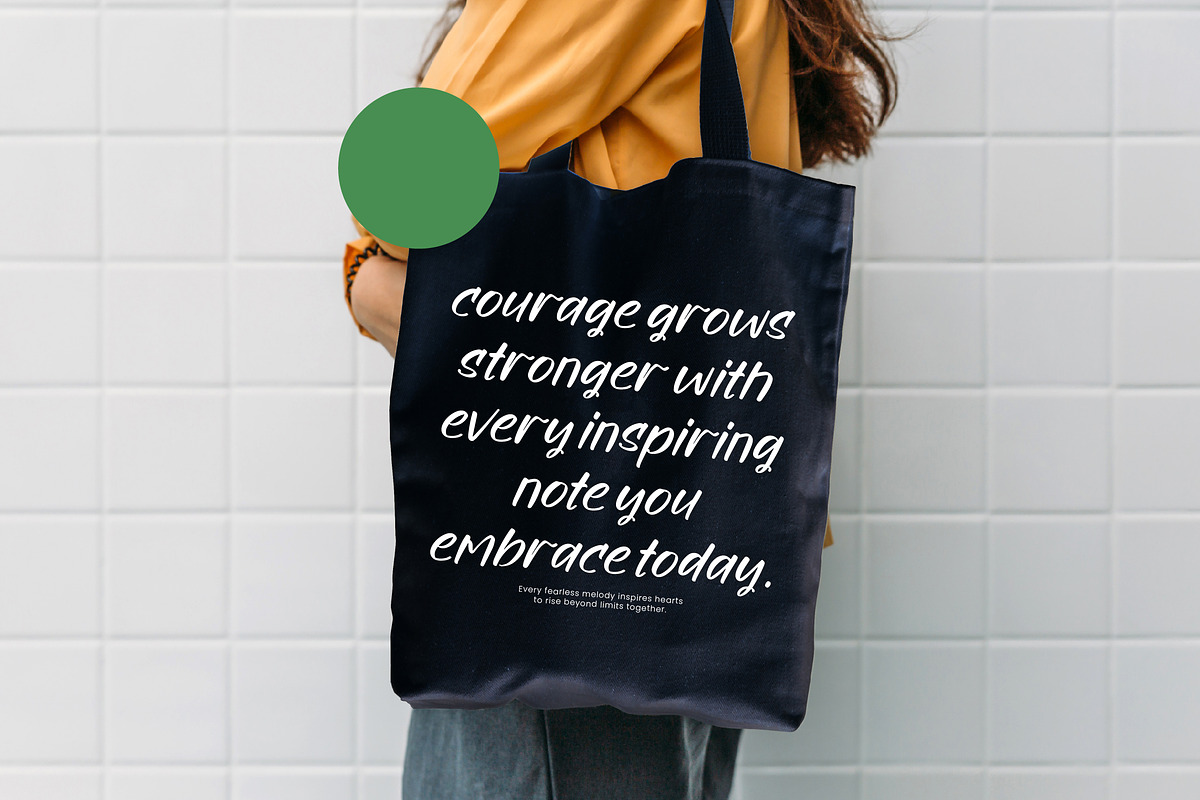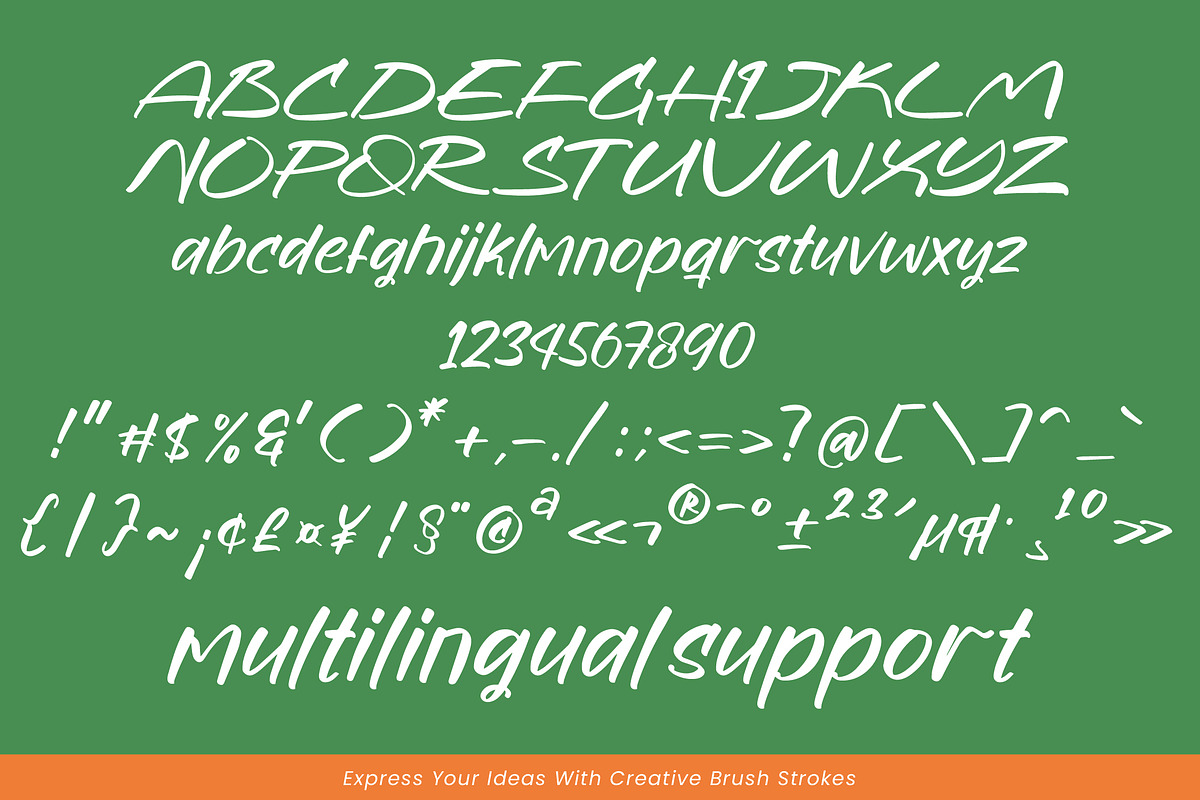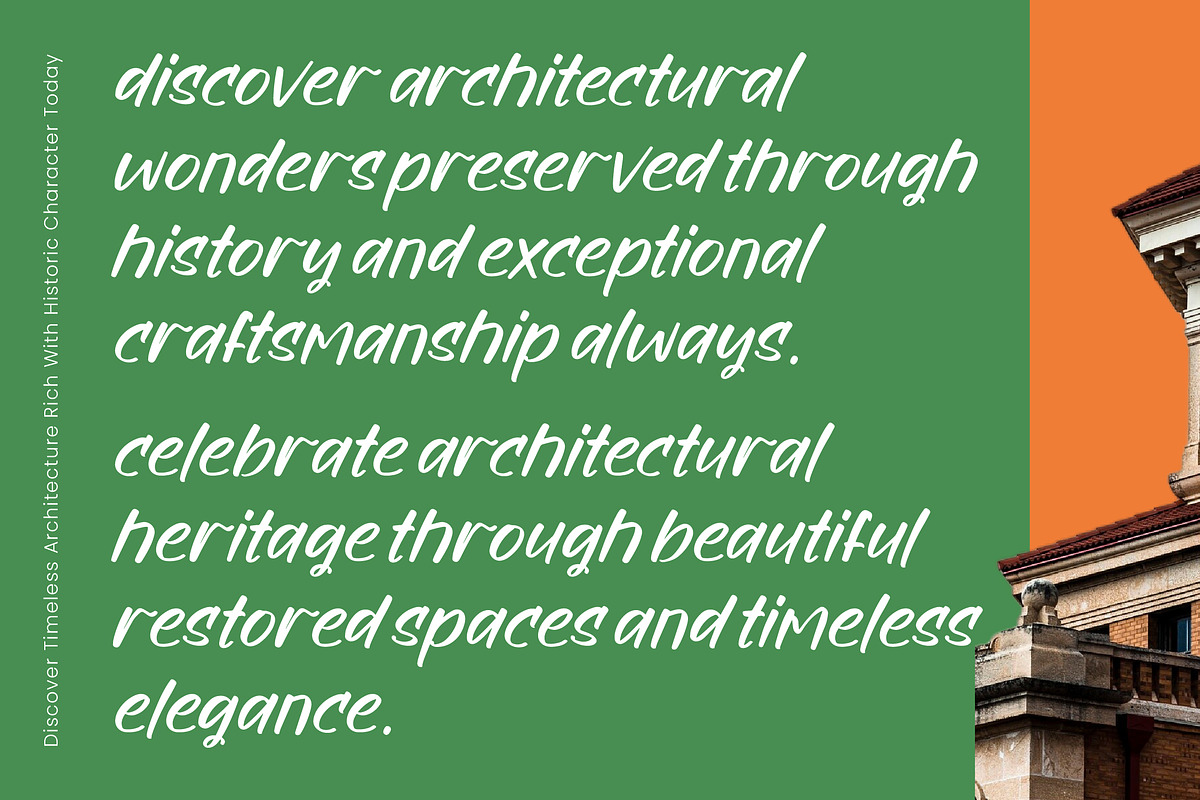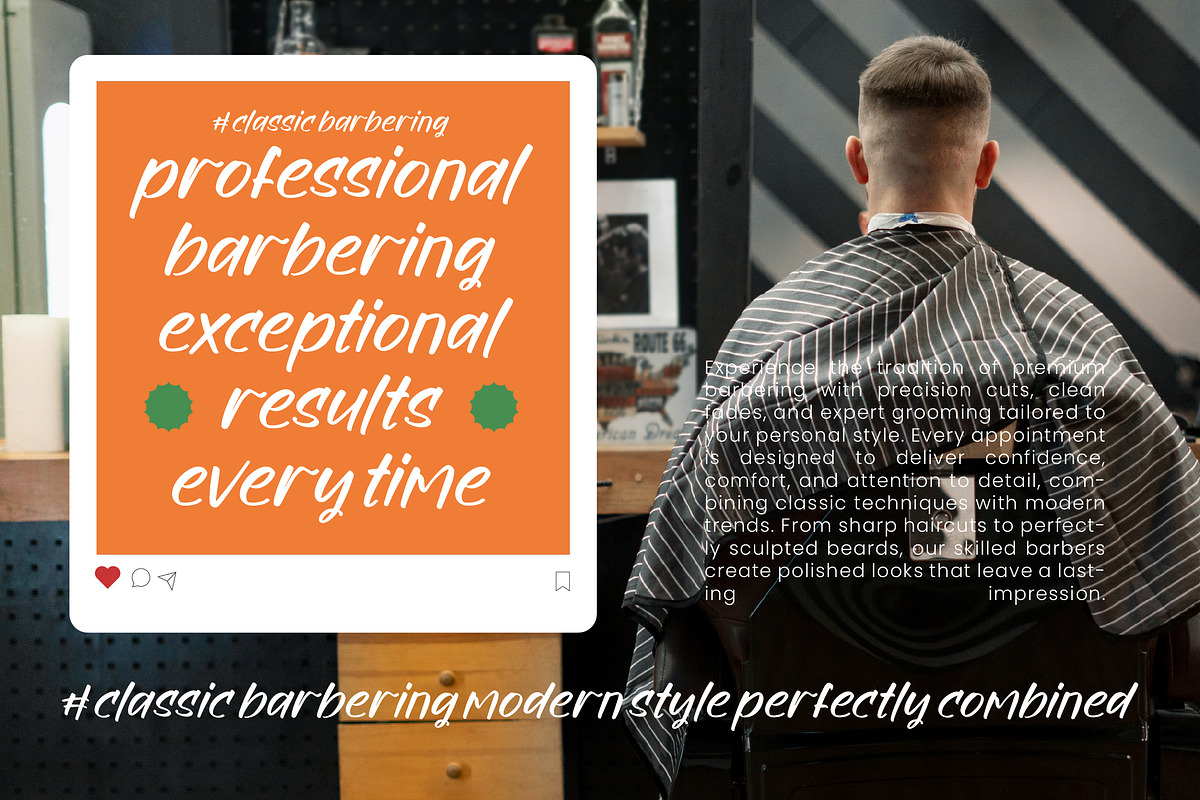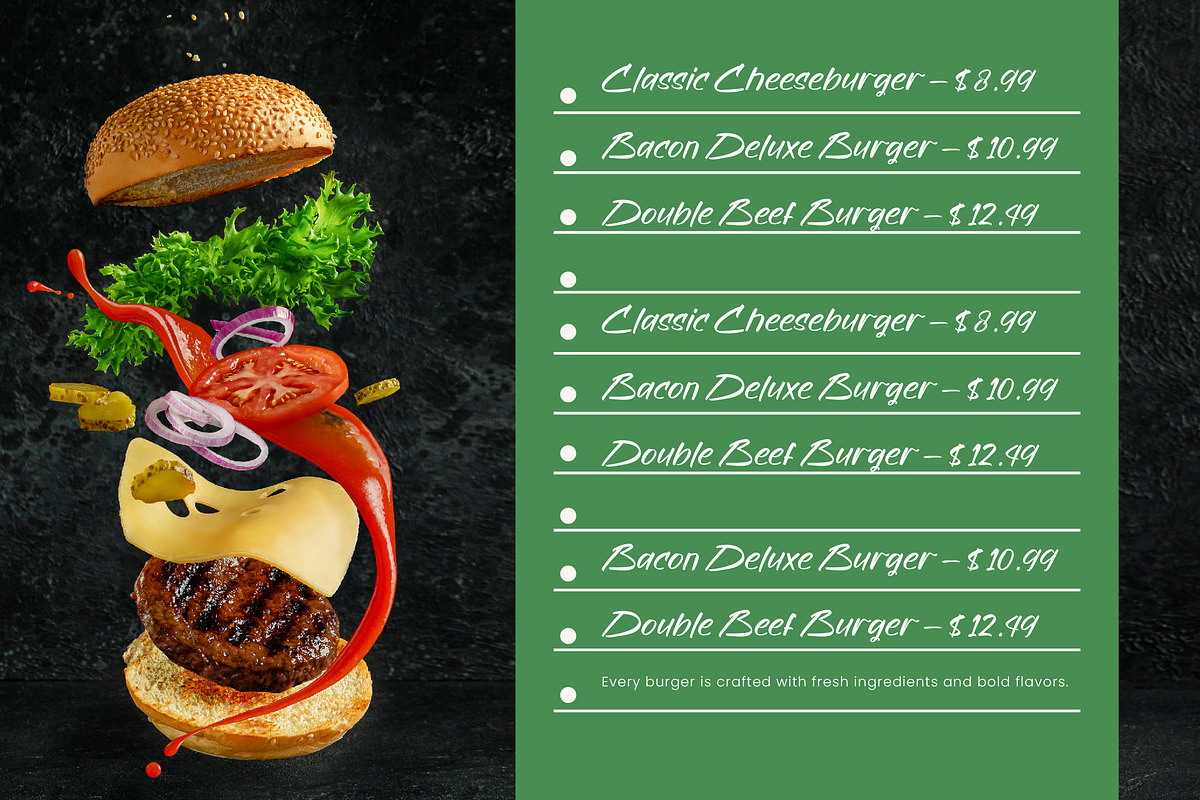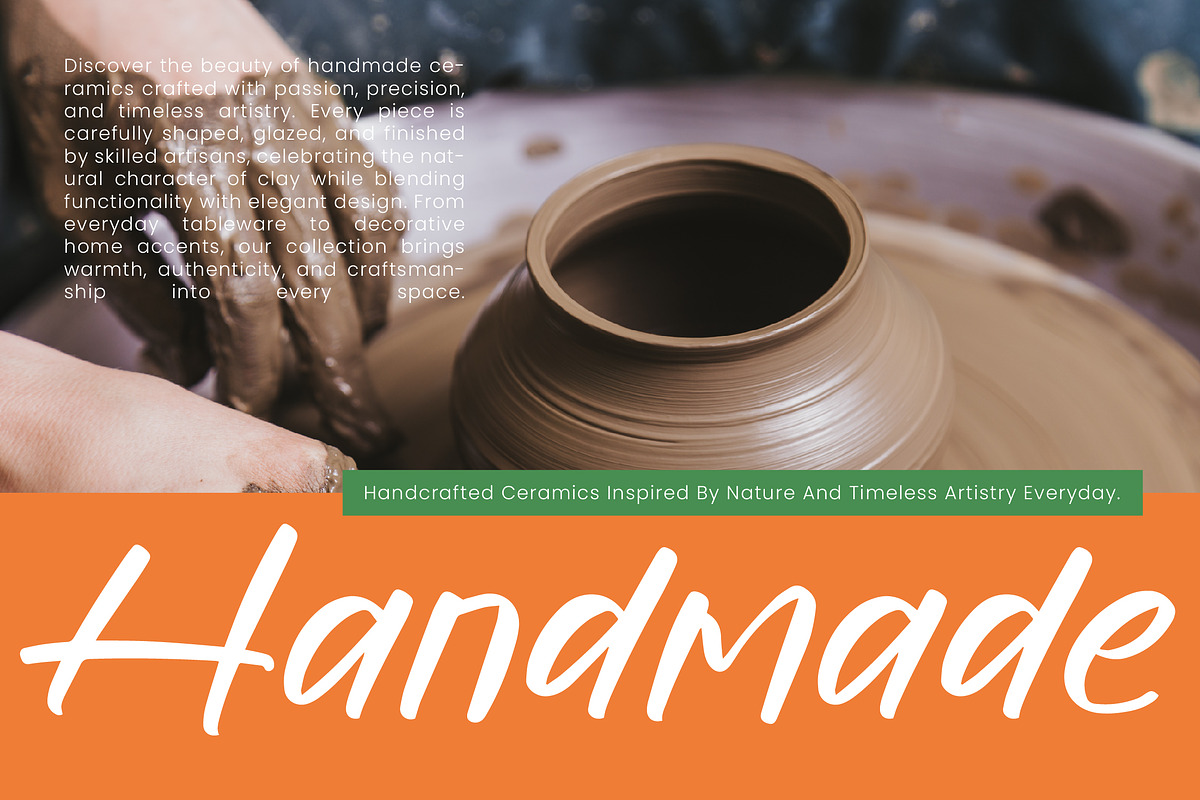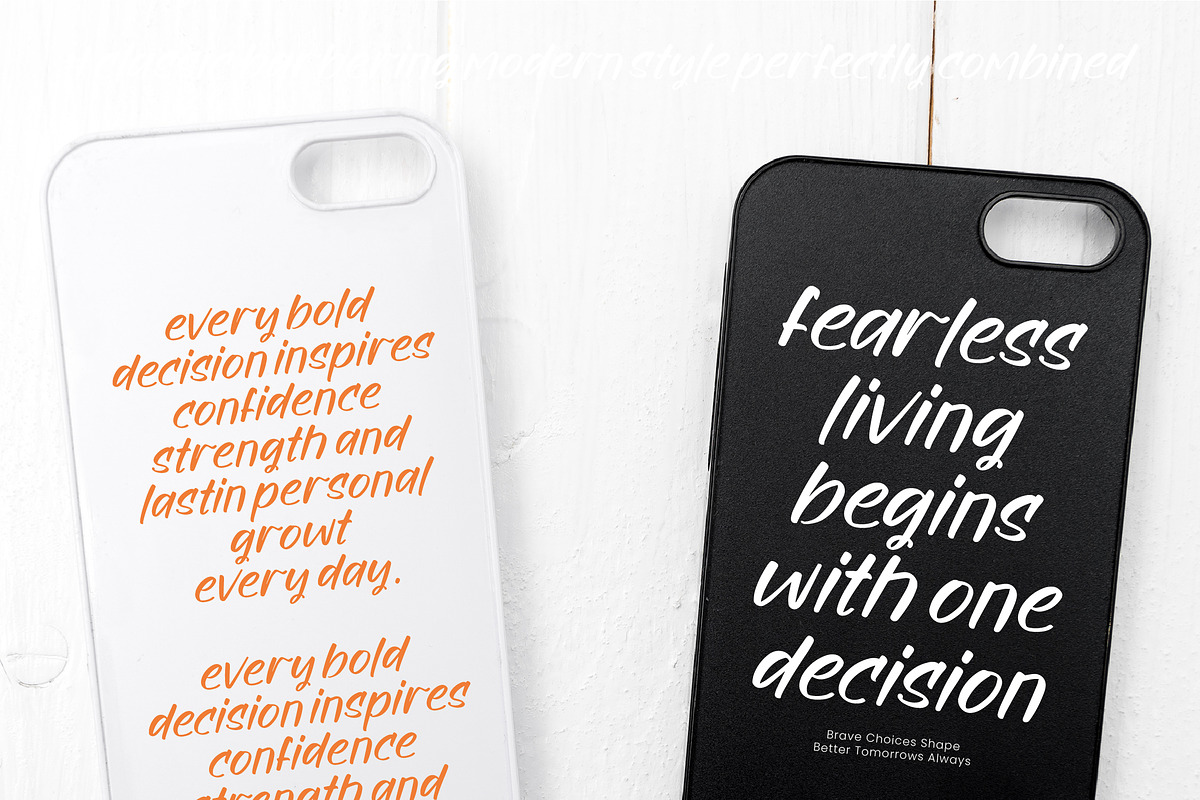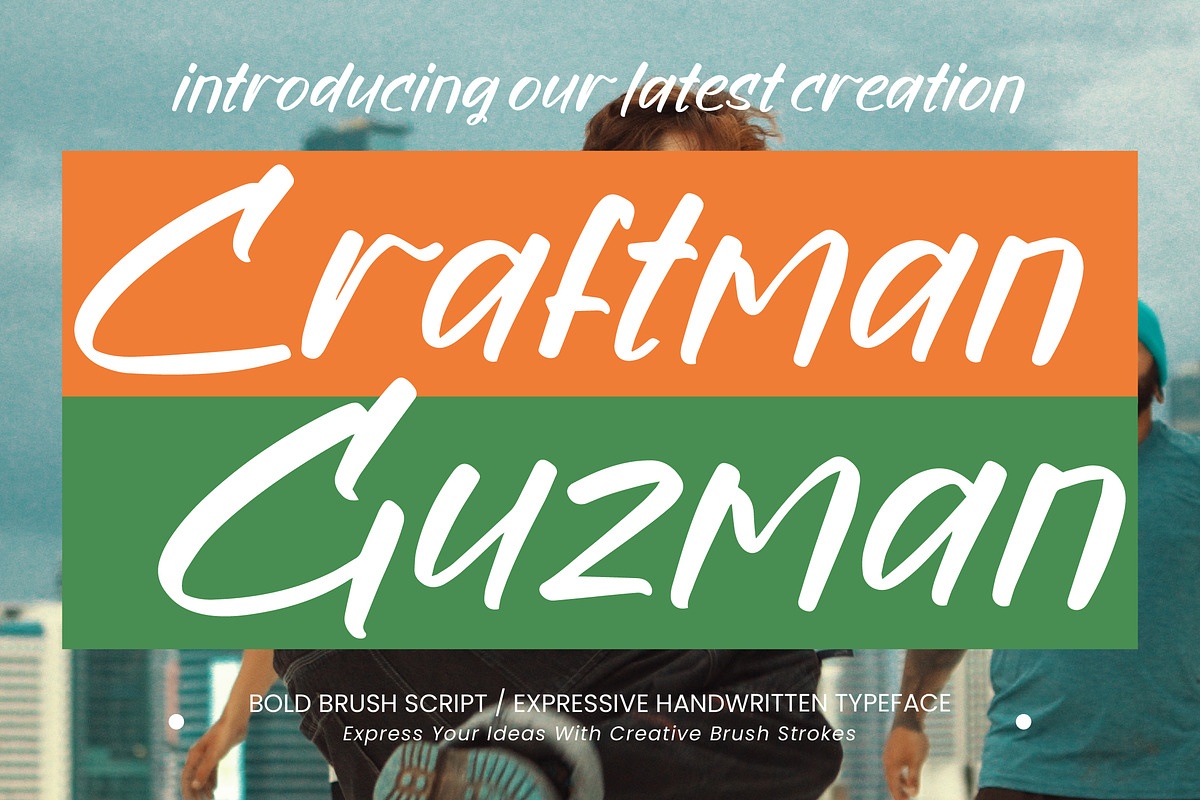
Craftman Guzman
Craftman Guzman is a bold brush script typeface with a strong, expressive handwritten personality. Inspired by energetic brush lettering, it combines thick strokes, organic curves, and natural letterforms to create a confident and creative visual style.
Its bold presence makes it ideal for designs that need an authentic handmade feel with a modern edge. Craftman Guzman works especially well for branding, apparel, posters, packaging, social media graphics, headlines, and creative promotional designs.
Features: • Bold brush script style • Expressive handwritten letterforms • Strong and dynamic brush strokes • Natural handmade appearance • Organic curves and flowing forms • Contemporary and energetic character • Excellent for large display typography • Versatile for both print and digital projects • Designed to create a strong visual impact
Craftman Guzman brings a bold and authentic brush-lettered aesthetic to your creative projects. Whether used for a powerful logo, striking headline, apparel artwork, or expressive poster, its natural strokes add personality and visual energy to every design.